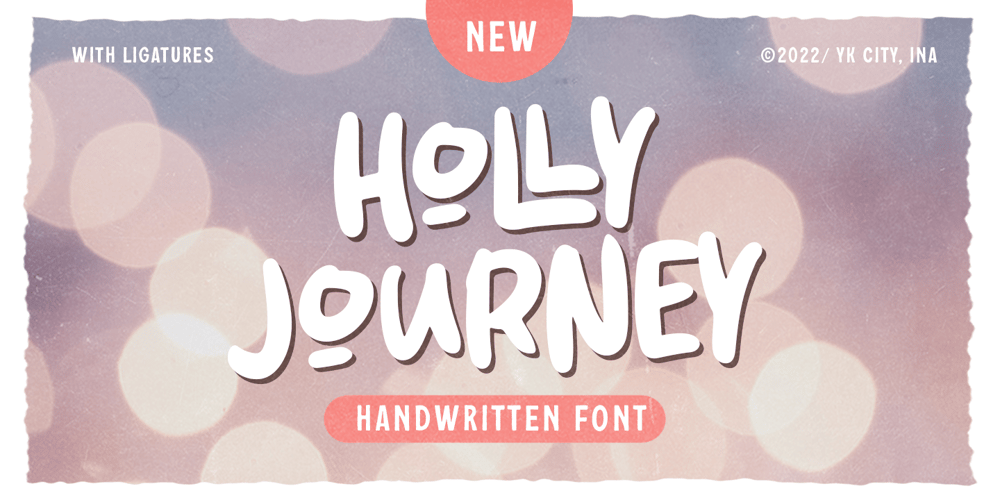
Holly Journey Font Family was designed by Hendry Juanda and published by Letterhend. Holly Journey contains 1 styles and family package options. Holly Journey is a display handwritten font with many ligatures. The strokes make this font outstanding and looks great for title. A typeface with fun and playful looks that perfectly made to be applied especially in storybook children or child theme which is need a standout font, and the other various formal forms such as invitations, labels, logos, magazines, books, greeting / wedding cards, packaging, fashion, make up, stationery, novels, labels or any type of advertising purpose.Features : numbers and punctuation multilingual alternates / swashes and ligatures PUA encoded We highly recommend using a program that supports OpenType features and Glyphs panels like many of Adobe apps and Corel Draw, so you can see and access all Glyph variations.